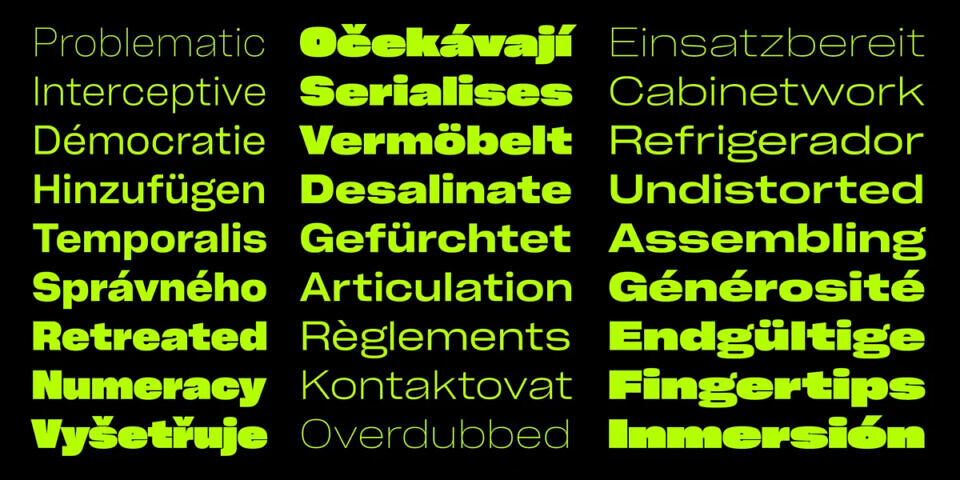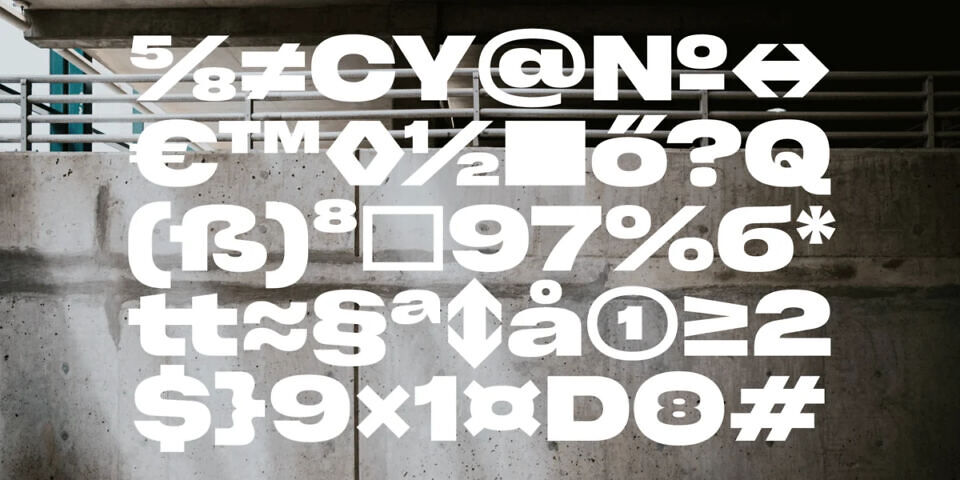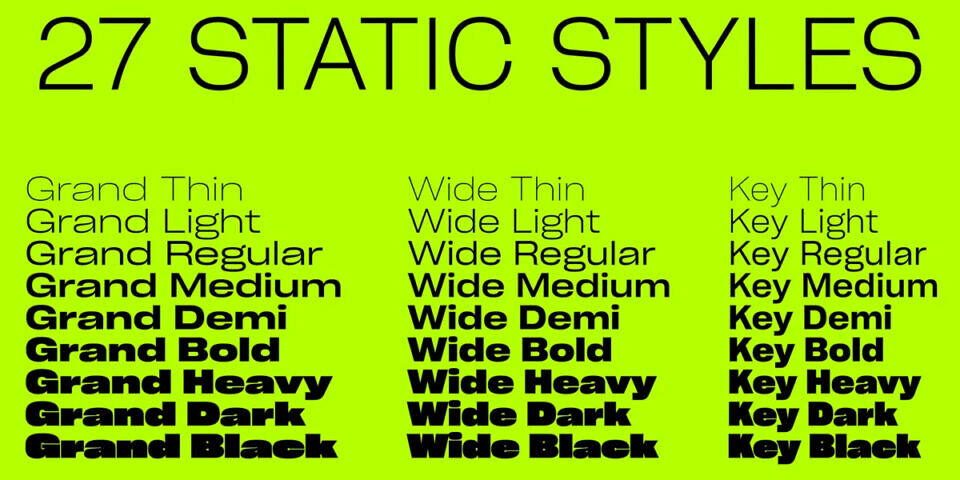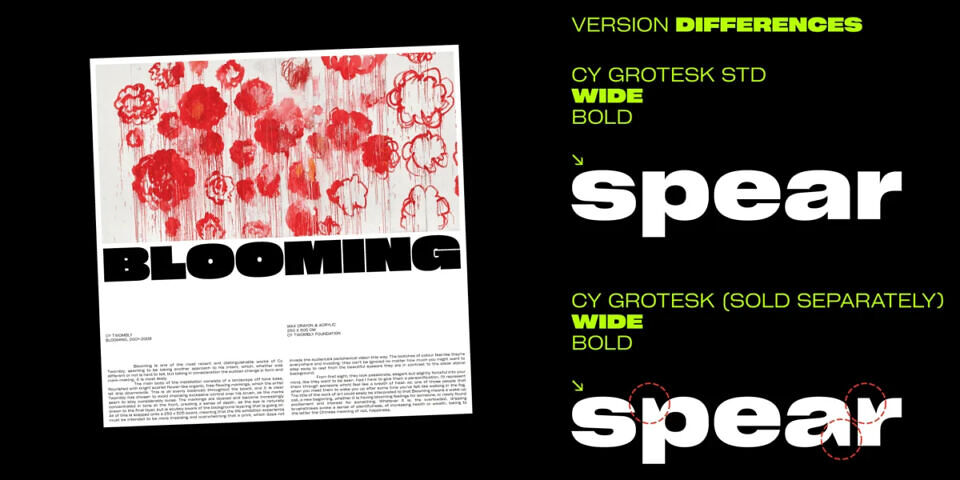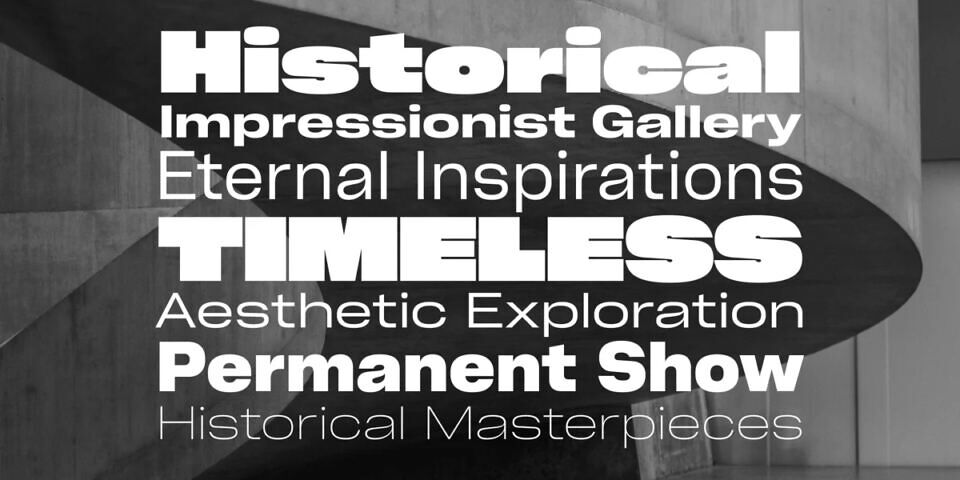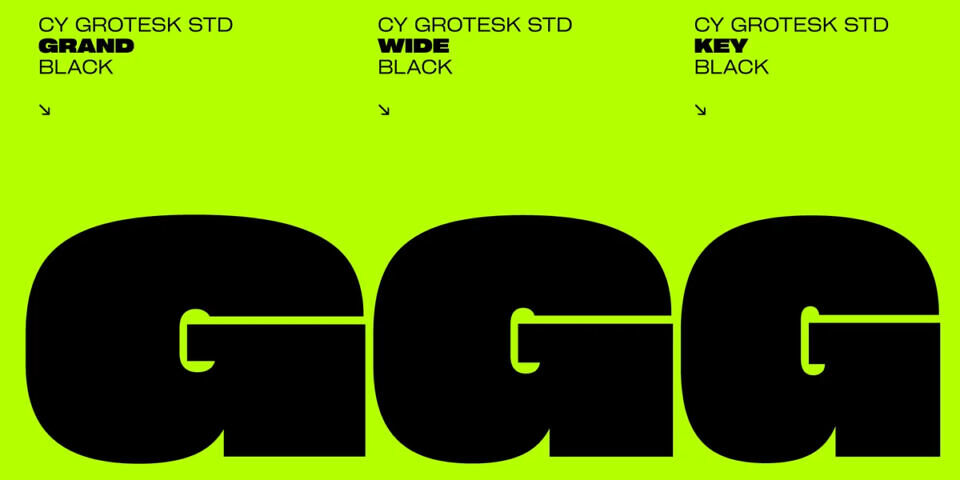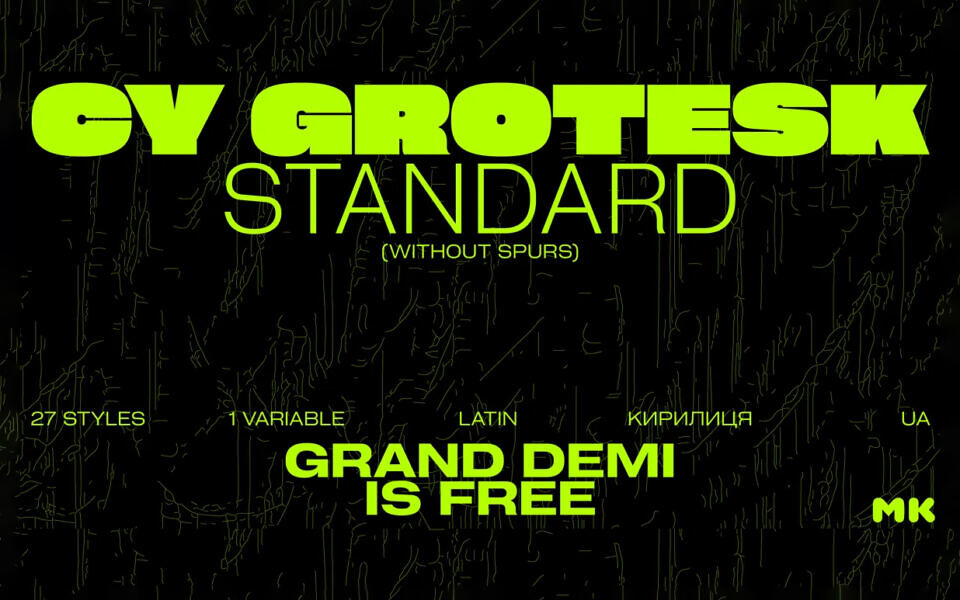
Cy Grotesk Std Font
Cy Grotesk Std is a modified version of the original Cy Grotesk, offering a more neutral and conventional approach to type design. The absence of sharp long angled spurs in the letters is its key distinction from the original, resulting in a cleaner and more versatile aesthetic.
It is a display typeface with an eccentric character and a special rhythm. Symbols feature smooth curves and tight apertures, balanced with large wedge incisions between the bowl and the stem. Built like a multifunctional workhorse, it has a wide range of font uses.
This type family consists of 27 styles that are adjustable in weight and width — or one variable font with 2 axes. From pure thin to radically black. From roomy key to catchy grand. All styles include an extended set of Latin characters and a basic Cyrillic.
Designed by: Maksym Kobuzan